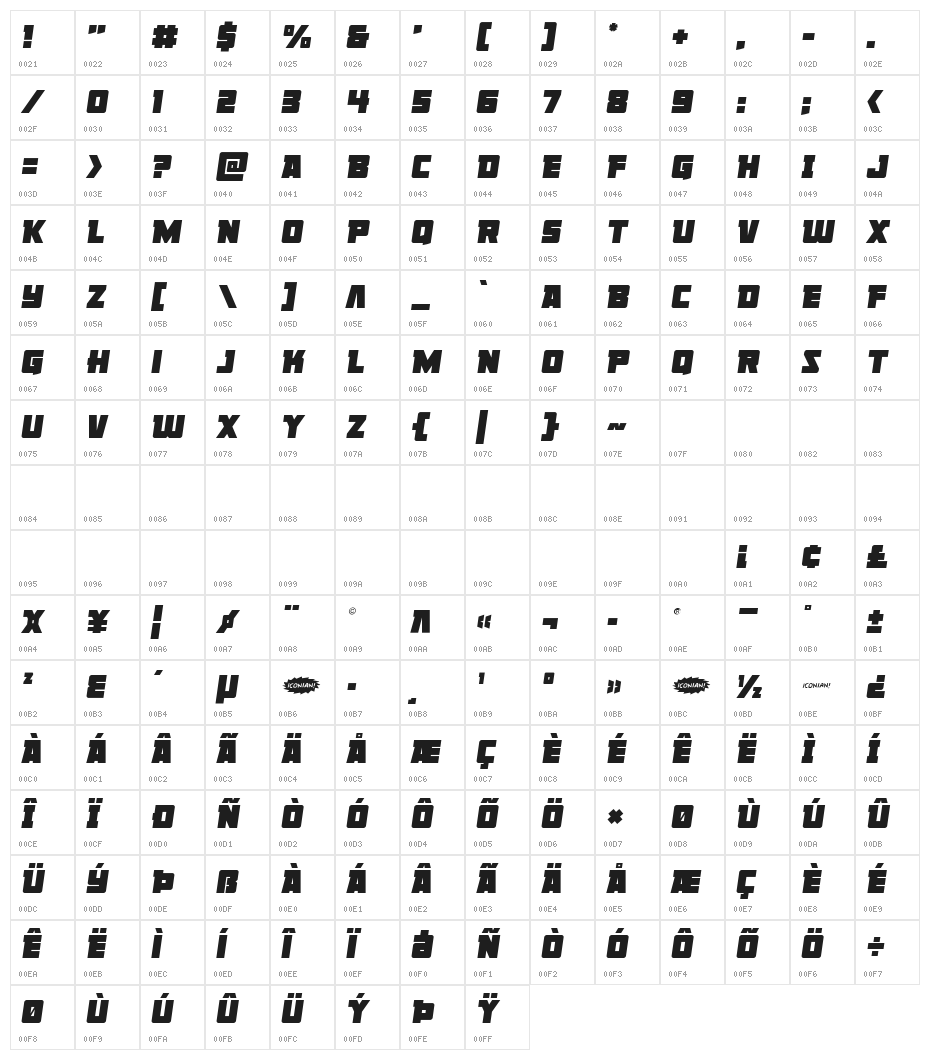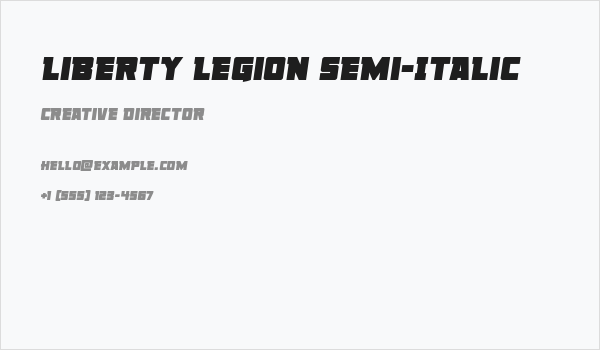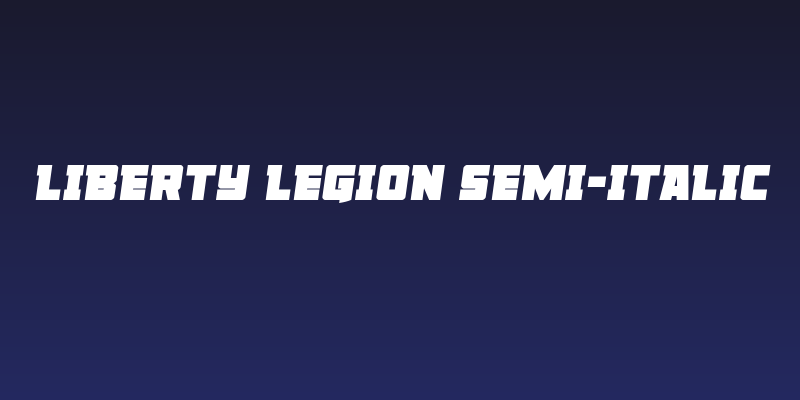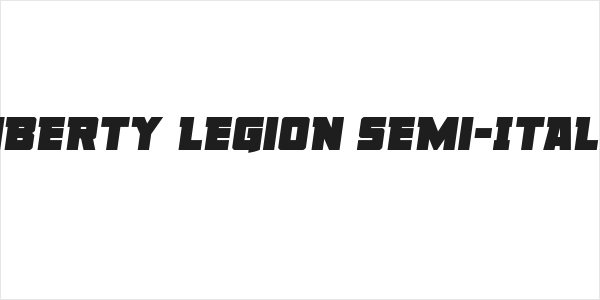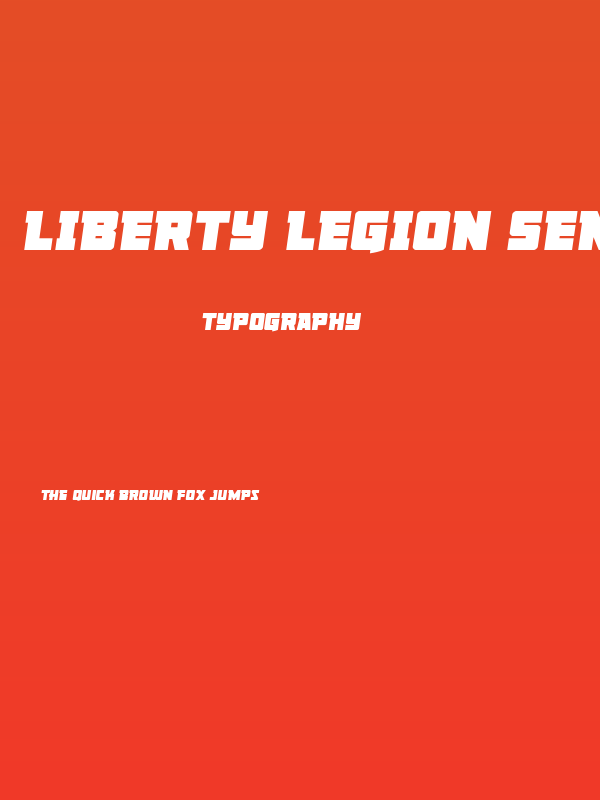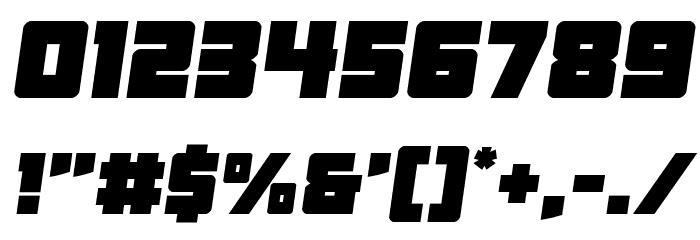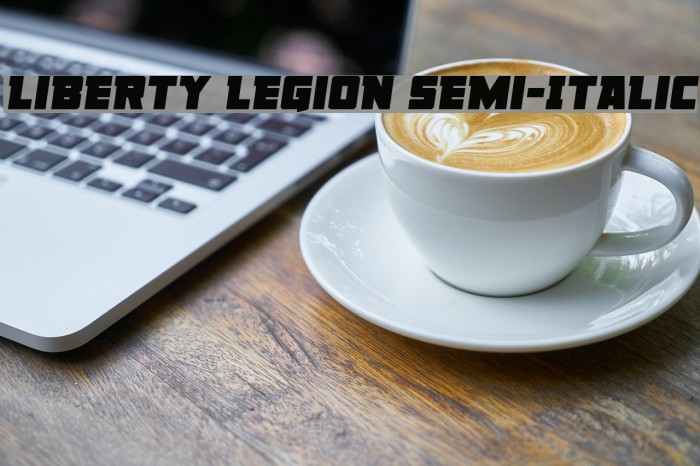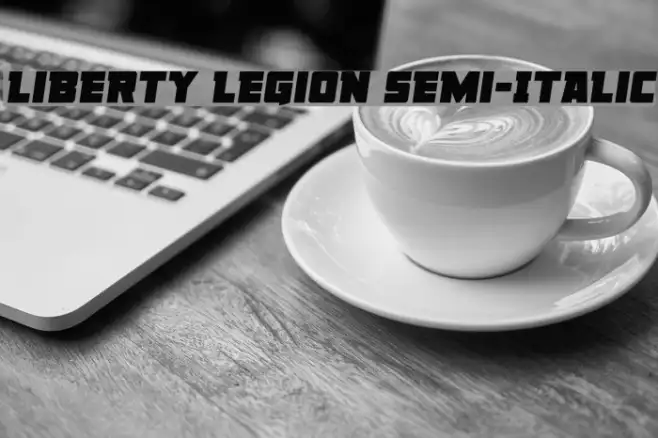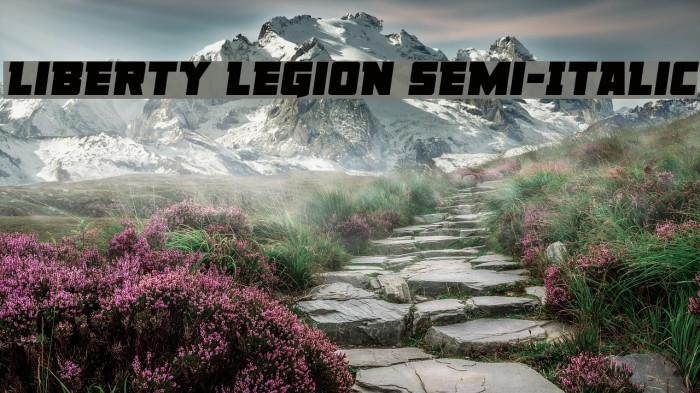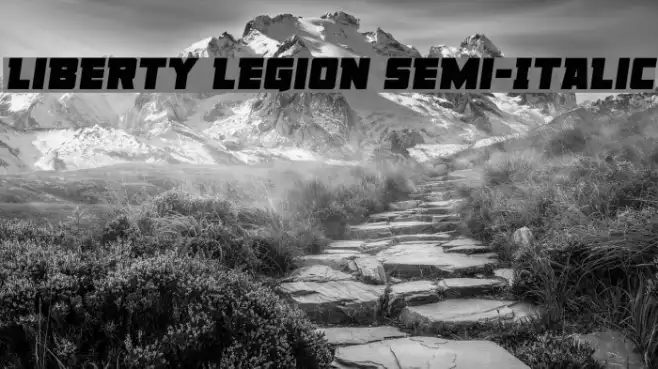
Liberty Legion Semi-Italic Font
| Vorgeschlagene Projekte | Ideal for sports branding, action movie posters, video game titles, and dynamic event promotions. |